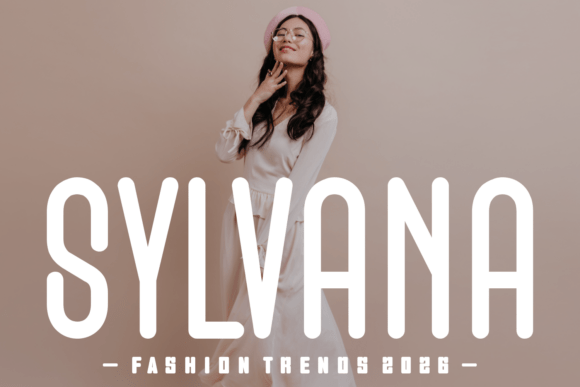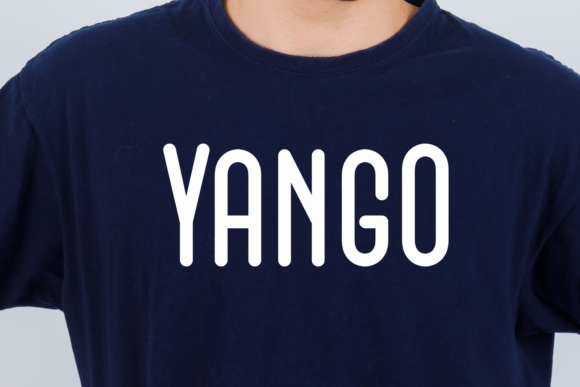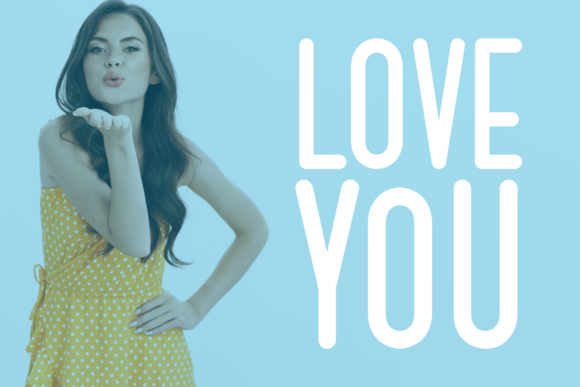
Discover the Elegance of Aseko Font: A Masterpiece for Modern Designers
In the realm of typography, few fonts manage to strike a balance between minimalism and bold statements. Aseko Font is one such marvel, a condensed sans-serif typeface that embodies style and elegance. Designed specifically for expressionists who appreciate the beauty of minimalistic design with a penchant for making bold statements, Aseko is rapidly becoming the go-to font for designers and crafters alike.
The Aesthetic Appeal of Aseko
Aseko’s design is characterized by its magnificently tall and slim letters. This feature not only gives it a unique aesthetic appeal but also allows for a sophisticated level of readability. The font’s letters are crafted with precision, ensuring that each character contributes to the overall elegance of the text. Coupled with sophisticated spacing, Aseko ensures that every word and sentence flows seamlessly, making it a joy to read and behold.
Ideal for Print-on-Demand Ventures
One of the standout applications of Aseko Font is in print-on-demand ventures. Whether it’s fashionable tees, captivating posters, bespoke mugs, or designer tote bags, Aseko brings a level of sophistication and style that is hard to match. The font’s versatility means it can be used in a variety of contexts, from casual, artistic projects to more professional branding and advertising materials.
Fashionable Tees and Apparel
For designers looking to create trendy and stylish apparel, Aseko offers the perfect blend of modernity and class. Its tall, slim letters make it an excellent choice for t-shirts, hoodies, and other fashion items, allowing designers to create eye-catching and memorable designs.
Captivating Posters and Prints
Posters and prints require a font that can stand out and make a statement. Aseko, with its elegant and bold design, is more than up to the task. Whether it’s for advertising, art projects, or informational posters, Aseko ensures that the message is conveyed with style and sophistication.
Bespoke Mugs and Designer Tote Bags
For more personalized items like bespoke mugs and designer tote bags, Aseko adds a touch of elegance and refinement. Its versatility allows it to be used in a variety of design contexts, from whimsical and playful to professional and corporate.
Beyond Print: Aseko in Digital Media
Aseko’s applications are not limited to print. Its sleek and modern design makes it an excellent choice for digital media, including film titles, contemporary branding, snappy logos, and trendy packaging. In the world of digital design, where trends come and go, Aseko offers a timeless elegance that can elevate any project.
Film Titles and Cinematic Visuals
In the realm of film and video production, Aseko can be used to create compelling titles and opening credits that set the tone for the cinematic experience. Its bold yet elegant design ensures that it leaves a lasting impression on viewers.
Contemporary Branding and Logos
For brands looking to make a statement, Aseko offers a stylish and modern solution. Its condensed sans-serif design makes it perfect for logos, wordmarks, and other branding elements, allowing companies to convey their message with clarity and style.
Why Choose Aseko?
So, why should designers and crafters choose Aseko over other fonts? The answer lies in its unique blend of minimalistic beauty and bold statement-making capabilities. Aseko is not just a font; it’s a design statement that can elevate any project, whether it’s for artistic crafting projects, minimalist brand identities, or cinematic visuals.
| Author | Riman (7NTypes) |
Aseko Font is a masterpiece of modern typography, offering a unique blend of elegance, style, and versatility. Whether you’re a designer working on a professional project or a crafter looking for the perfect font for your artistic endeavors, Aseko is an exceptional choice. Its tall, slim letters and sophisticated spacing make it perfect for a wide range of applications, from print-on-demand ventures to digital media. With Aseko, you can render a classic statement with a stylish edge, making your designs stand out in a world of typography.